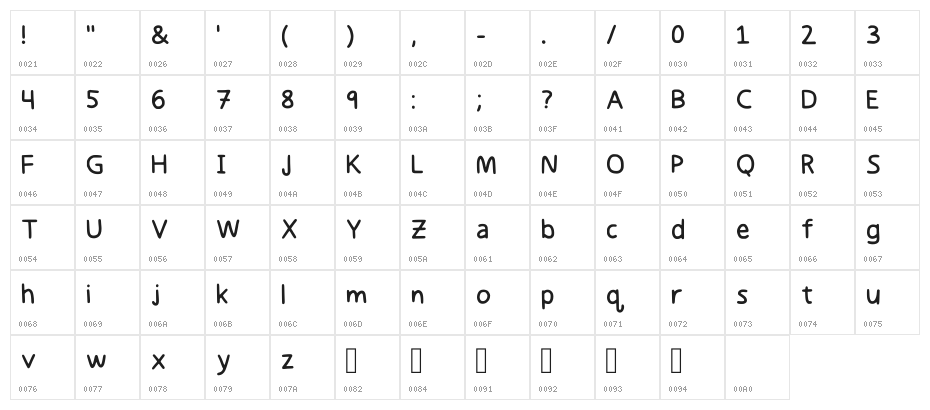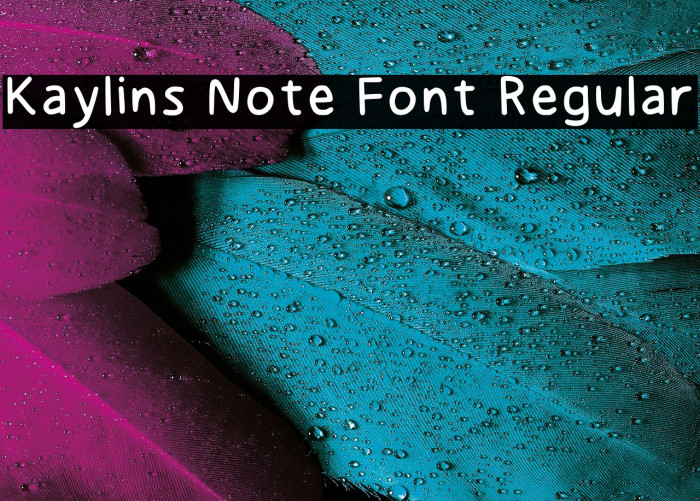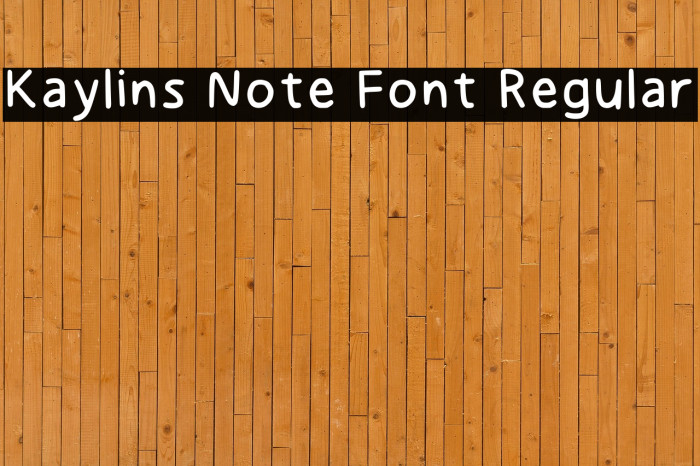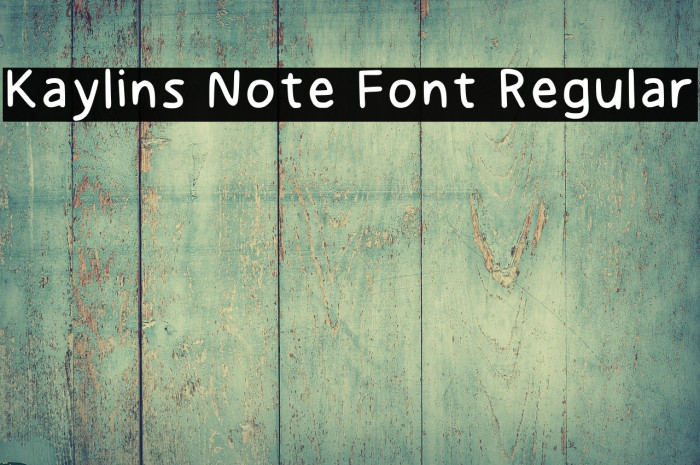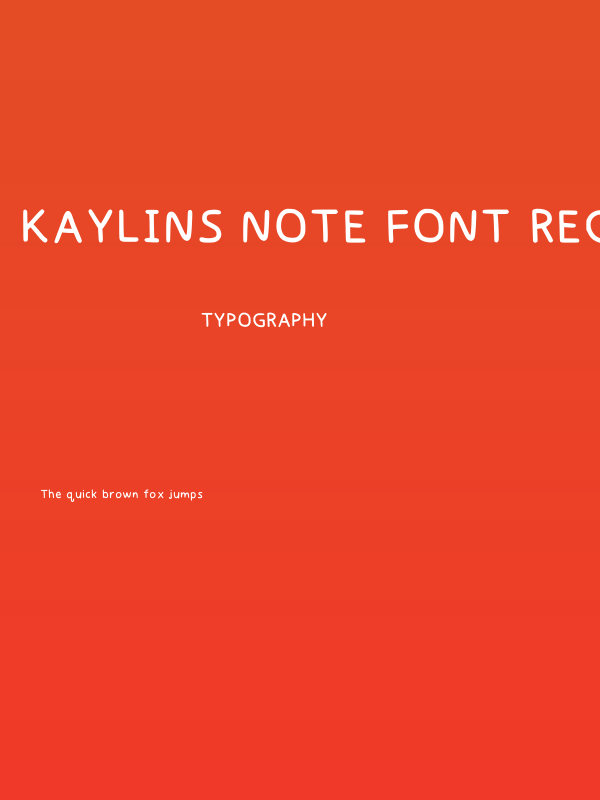
Kaylins Note Font Regular Font
Kaylins Note Font Regular Description
A playful, handwritten-style font with rounded edges and a casual appearance.
| Overall Style | Casual, Playful |
| Use Case | Headlines, Informal text |
| Proposed Projects | Greeting cards, informal invitations, children's books. |